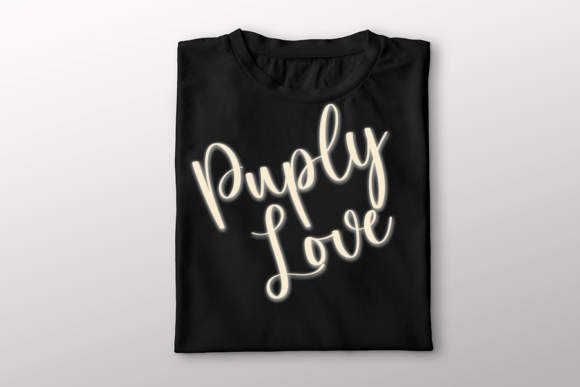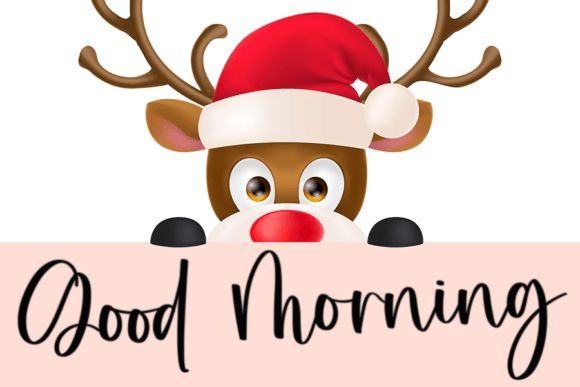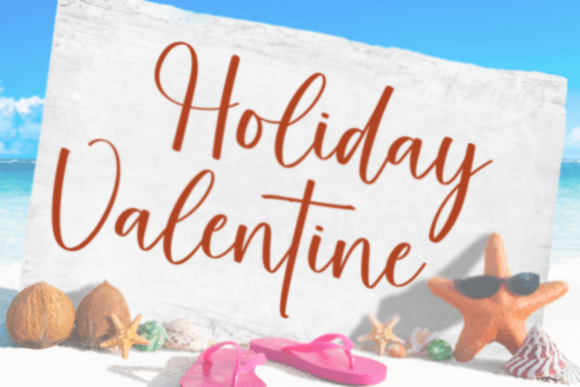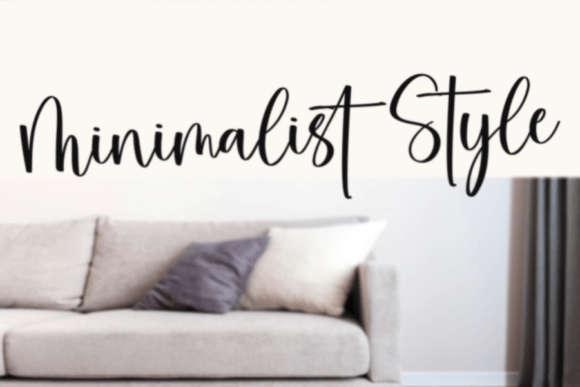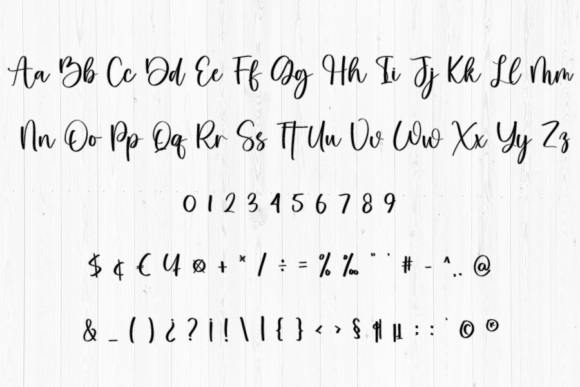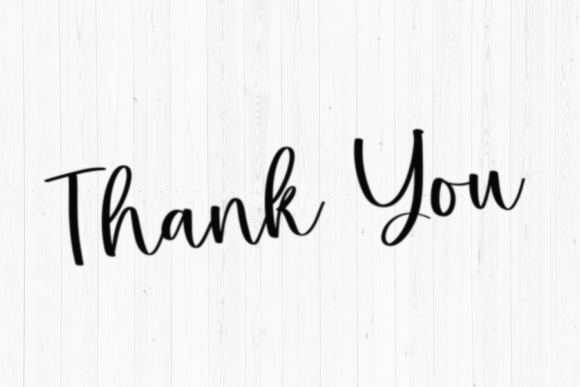
The Quest for the Perfect Font: Discovering Bestwood
I’ll never forget the design project that led me to Bestwood Font. I was working on a branding project for a luxury client, and I was determined to find the perfect handwritten font that would elevate their brand to new heights. After hours of scrolling through font libraries and trying out different options, I stumbled upon Bestwood – and it was love at first sight! ✨
An Honest Review of Bestwood Font
- ✨ Timeless elegance: Bestwood has a classic, sophisticated feel that’s reminiscent of traditional calligraphy.
- ✅ Versatility: This font is incredibly versatile and can be used for a wide range of projects, from branding and advertising to packaging and stationery.
- 💫 Contemporary twist: Bestwood has a modern edge that sets it apart from more traditional handwritten fonts.
- 🎨 Beautifully crafted: The attention to detail in this font is exceptional, with beautifully crafted letterforms and a clear sense of rhythm.
While Bestwood is an exceptional font, there are a few things to keep in mind: ⚠️
- 🤔 Limited availability of certain characters: Some users have reported that certain characters, such as ligatures or special glyphs, are not readily available.
- ⚠️ Not ideal for body text: Bestwood is best suited for headlines, titles, and short paragraphs – it may not be the best choice for longer blocks of text.
The Story Behind Bestwood Font
Bestwood was designed with the goal of creating a timeless, elegant handwritten font that would bring a touch of sophistication to any project. Inspired by classic calligraphy, the designer aimed to create a font that would feel both modern and traditional. With its impeccable form and beautiful craftsmanship, Bestwood is sure to become a favorite among designers and crafters alike. 📝
Q: What makes Bestwood Font unique?
A: Bestwood’s unique blend of classic elegance and modern sophistication sets it apart from other handwritten fonts.
Q: Is Bestwood suitable for body text?
A: While Bestwood is beautiful, it’s best suited for headlines, titles, and short paragraphs – it may not be the best choice for longer blocks of text.